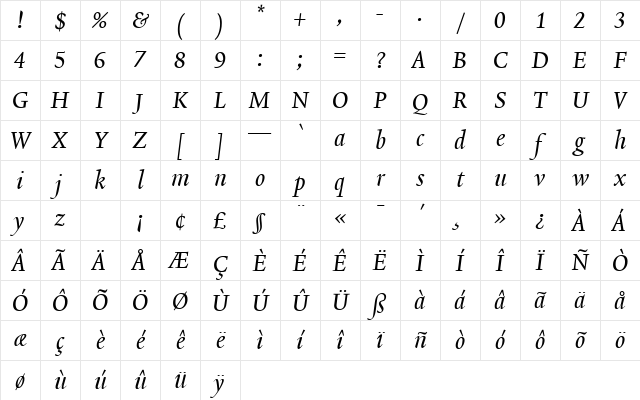
Complete Lexicon No2 Italic A Tab glyph index. Displaying only characters natively supported by Lexicon No2 Italic A Tab font.
Lexicon No2 is a composed and adaptable typeface that performs quietly and consistently across a wide range of design contexts. The slanted form adds forward momentum and visual energy.